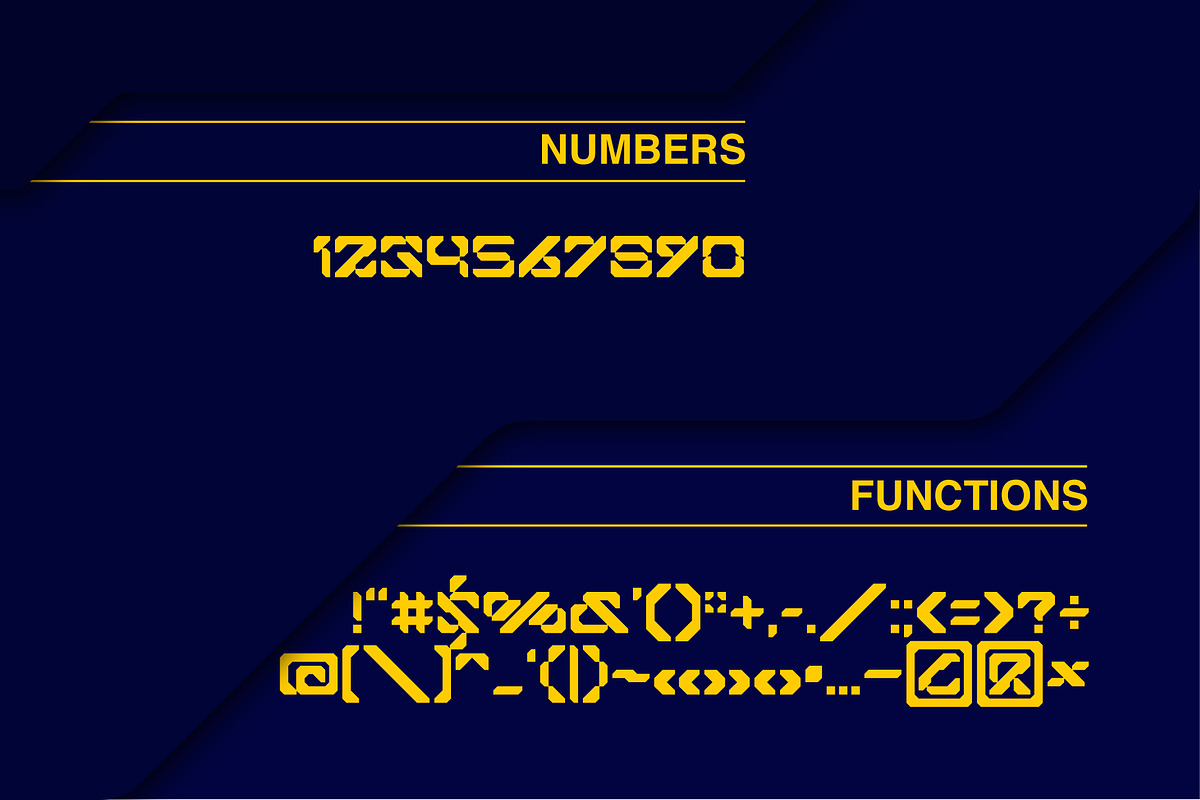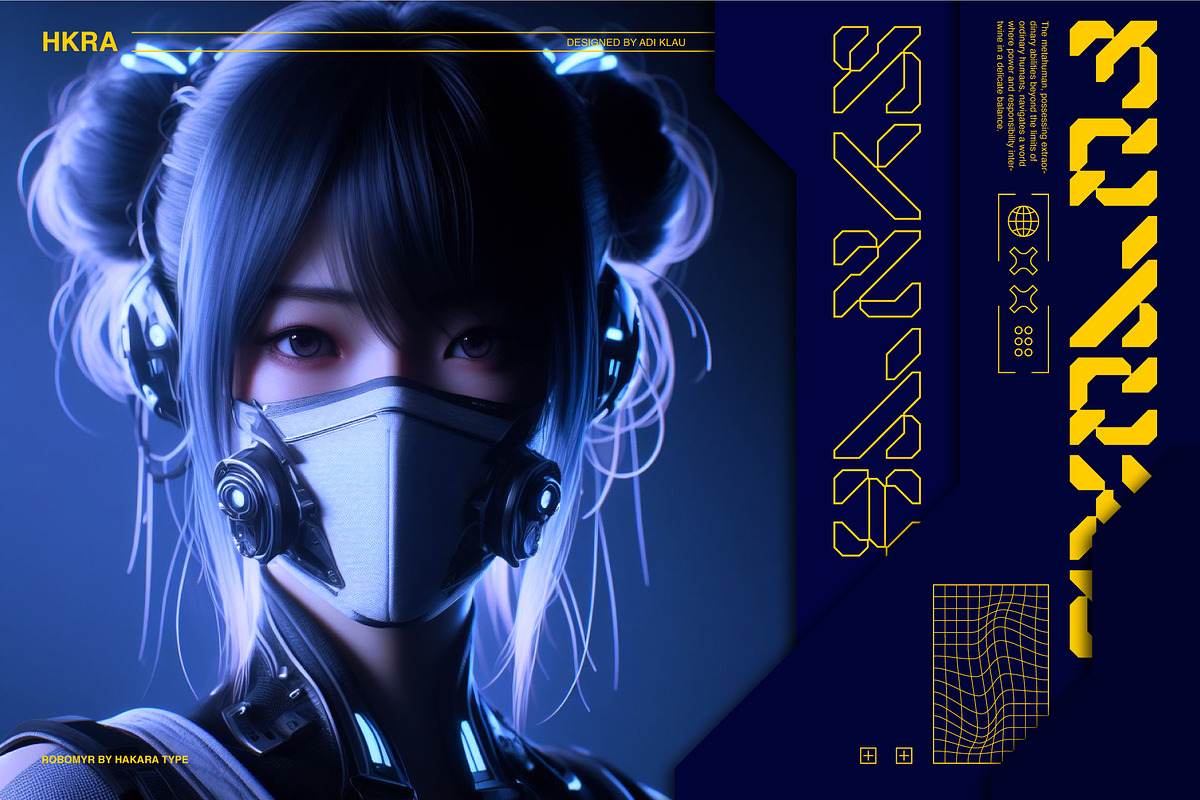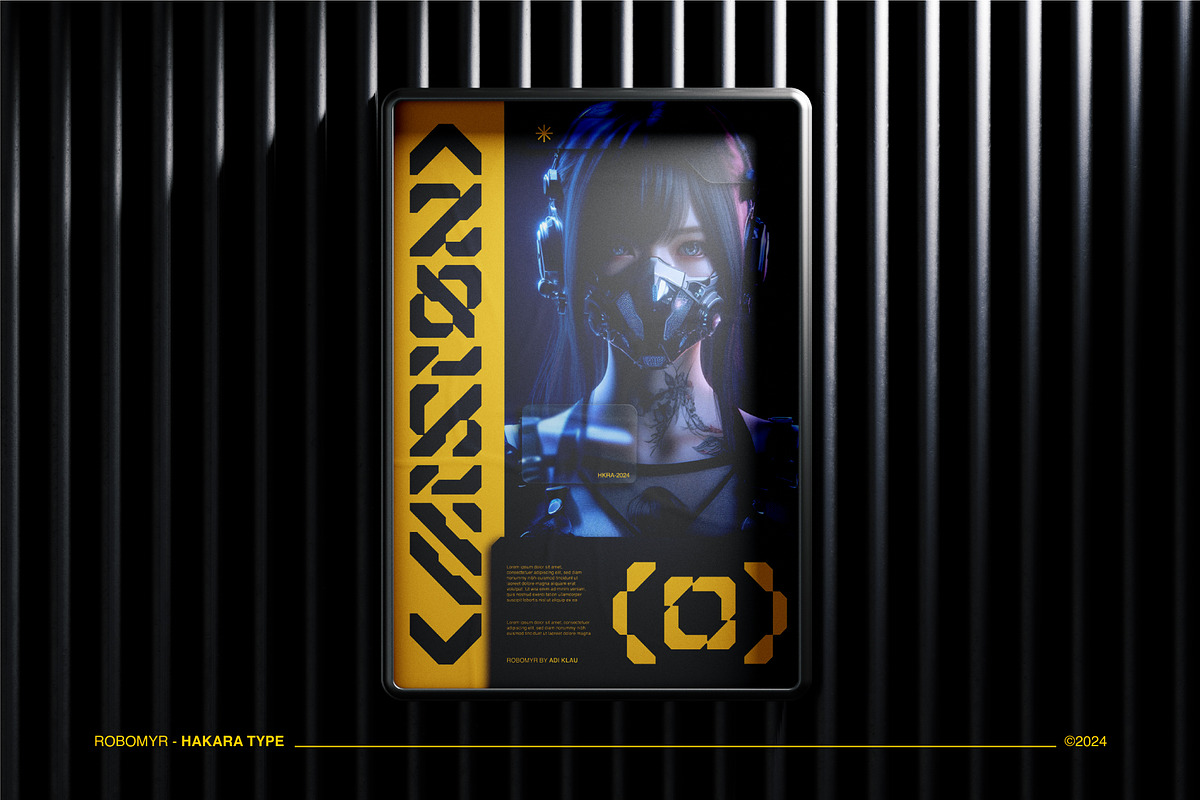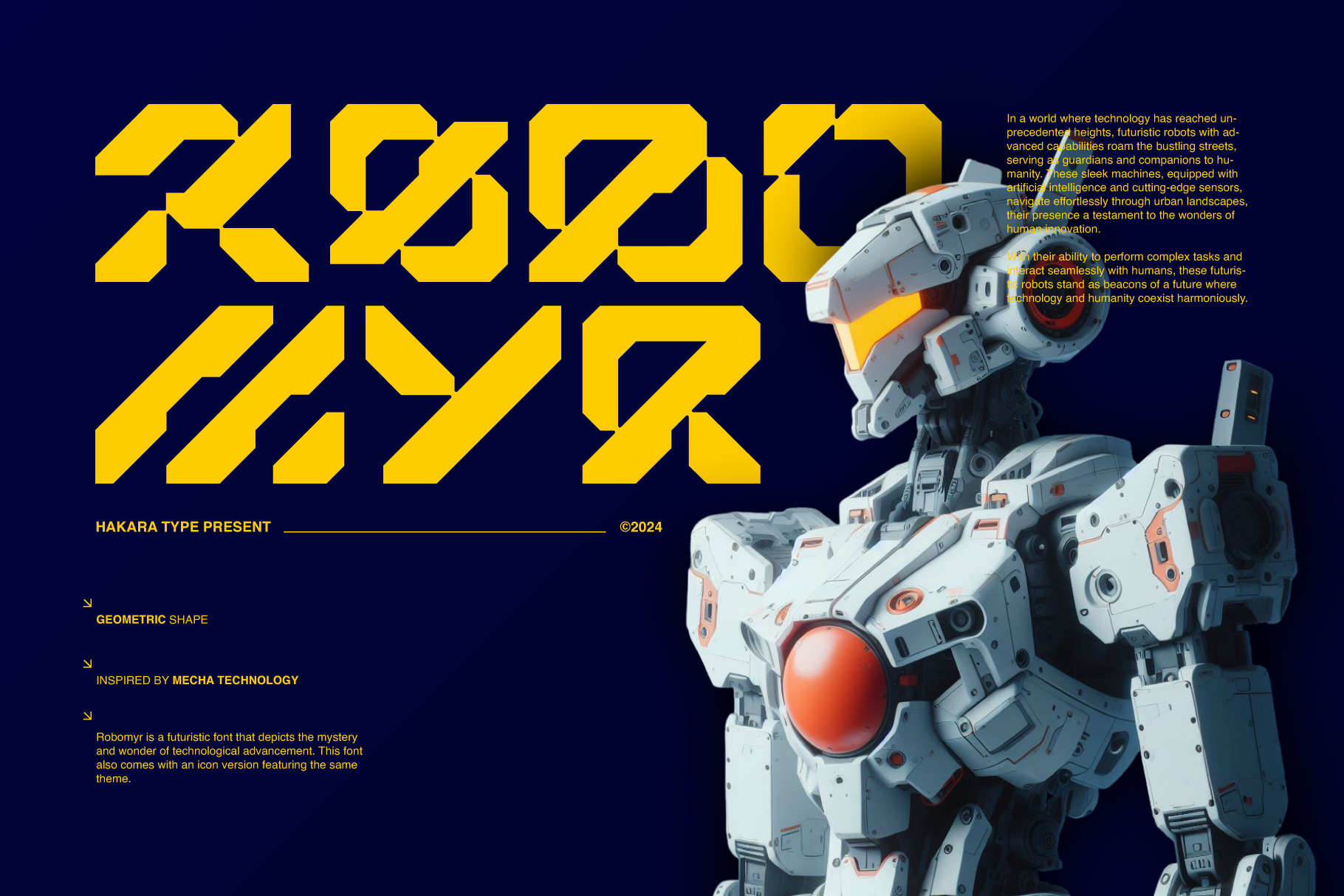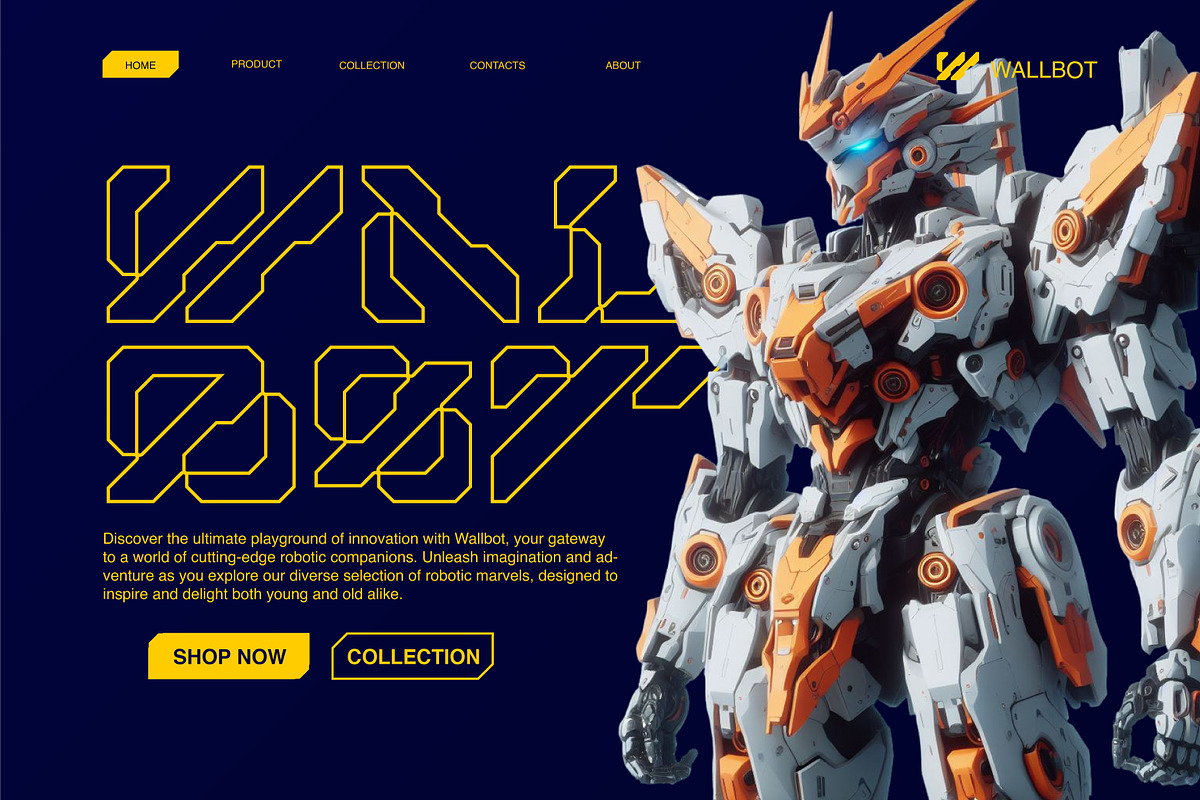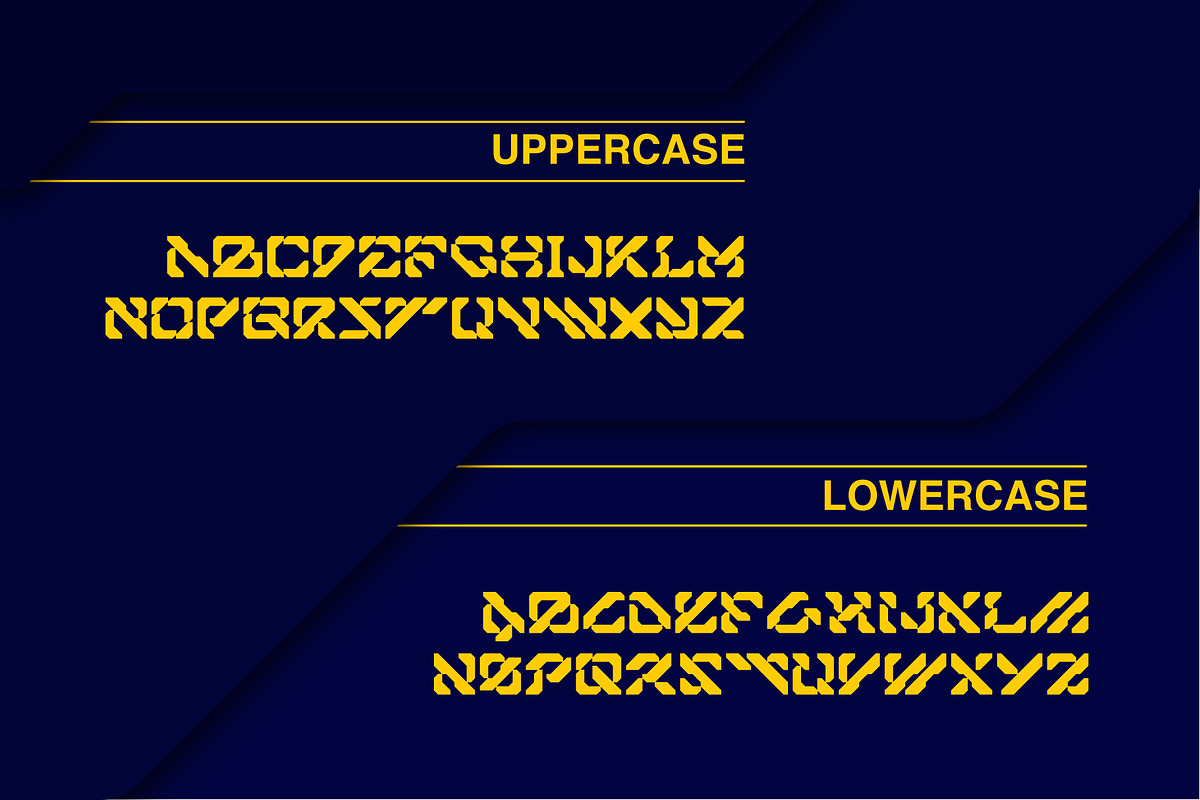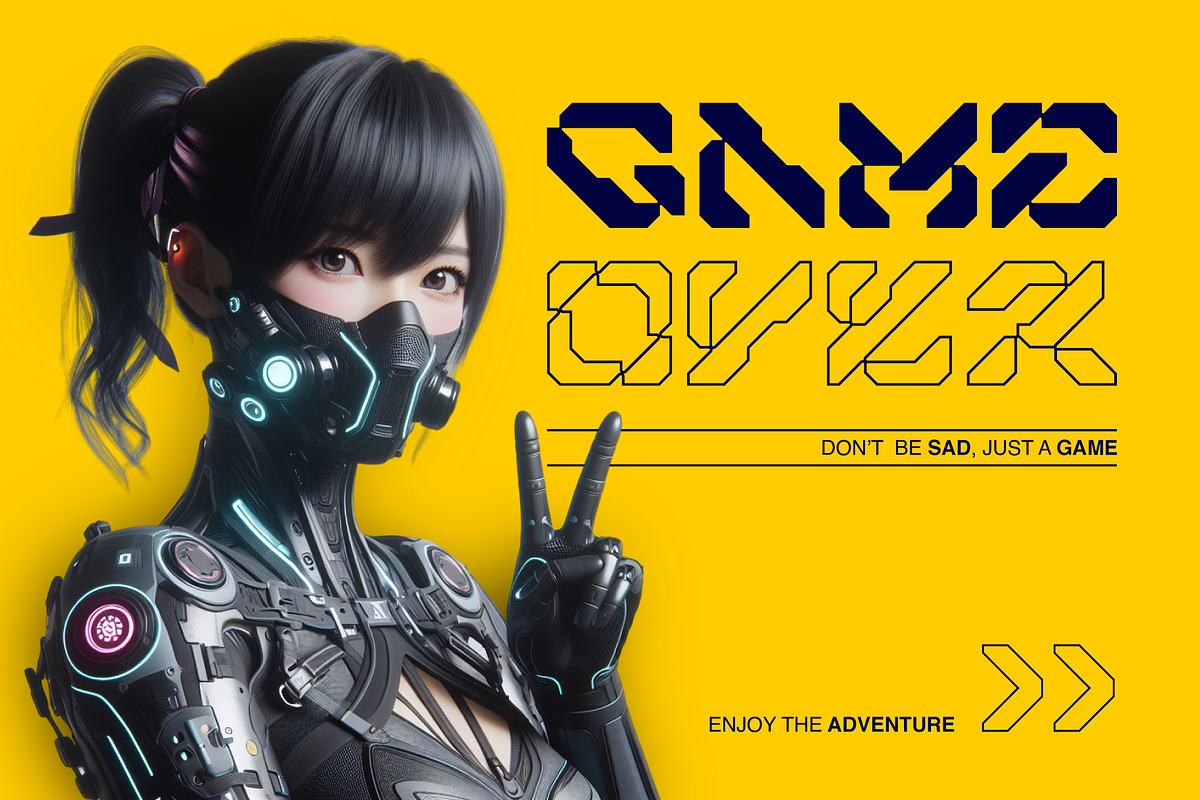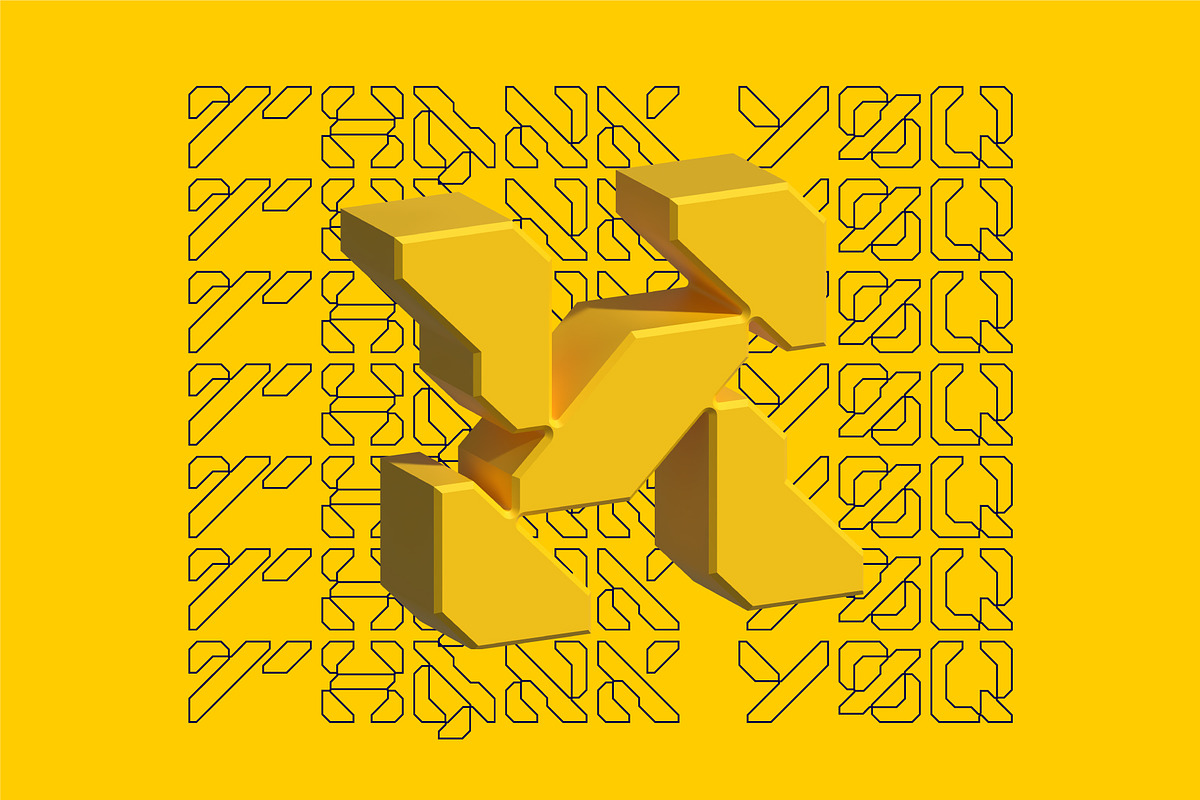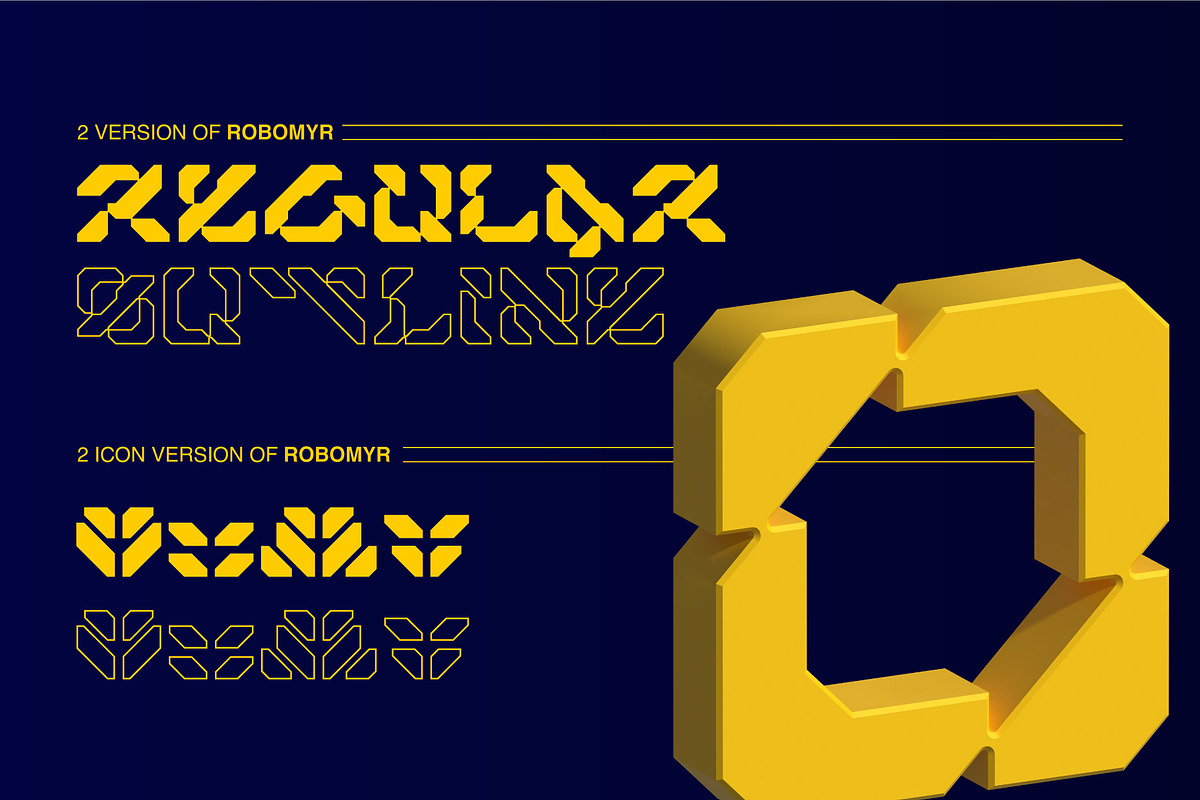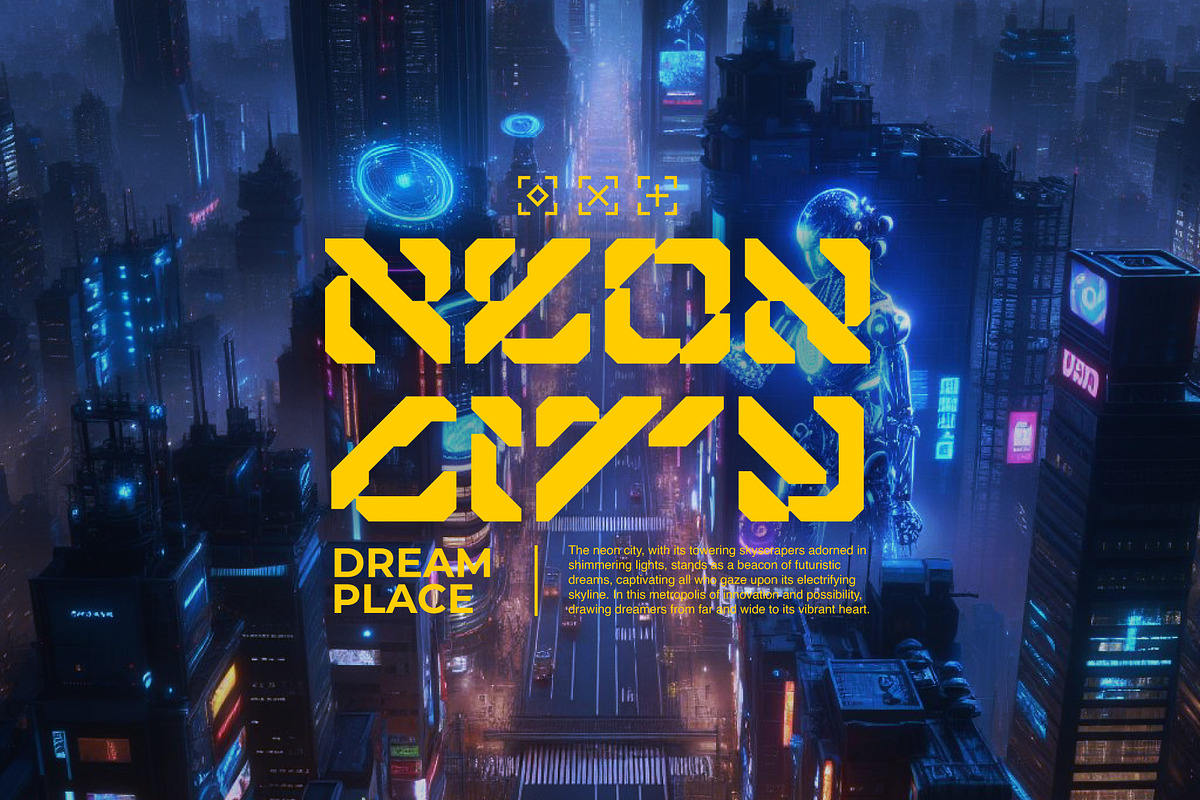
Robomyr - Futuristic Font
Robomyr is a bold experimental display font with a futuristic edge. Inspired by the extraordinary evolution of mecha technology, Robomyr delivers a striking visual impact with is strong, daring, and high-contrast design. Perfect for projects that embrace the aesthetics of future tech and innovation. This font also comes with an icon version featuring the same theme. Robomyr comes with uppercase, lowercase, numbers, and punctions.